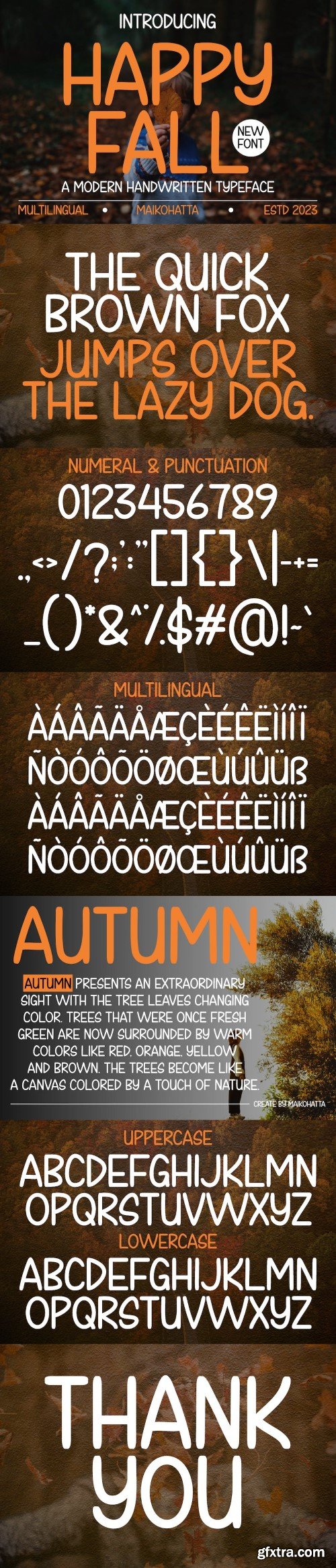
秋快乐 - 现代手写字体
Happy FallThis font is highly suitable for projects that aim to depict the beauty and charm of the autumn season. It works well for designs such as invitations, greeting cards, posters, and other creative projects, imparting a stunning natural touch and infusing the captivating ambiance of the fall season into every design.